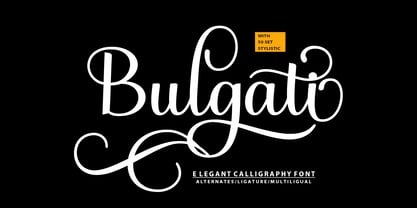
Bulgati Script
por Meta Creative
La familia tipográfica Bulgati Script fue diseñada por y publicada por Meta Creative. Bulgati Script contiene 1 estilos. Más información sobre esta familia
Bulgati is a modern script typeface with an elegant flair and luxurious classic touch. Featuring smooth lines and dramatic swashes, this font is perfect for branding, wedding invitations, fashion editorials, and high-end product packaging. Its refined yet bold letterforms exude sophistication and charm, making it ideal for designs that seek a glamorous, feminine, and timeless aesthetic.